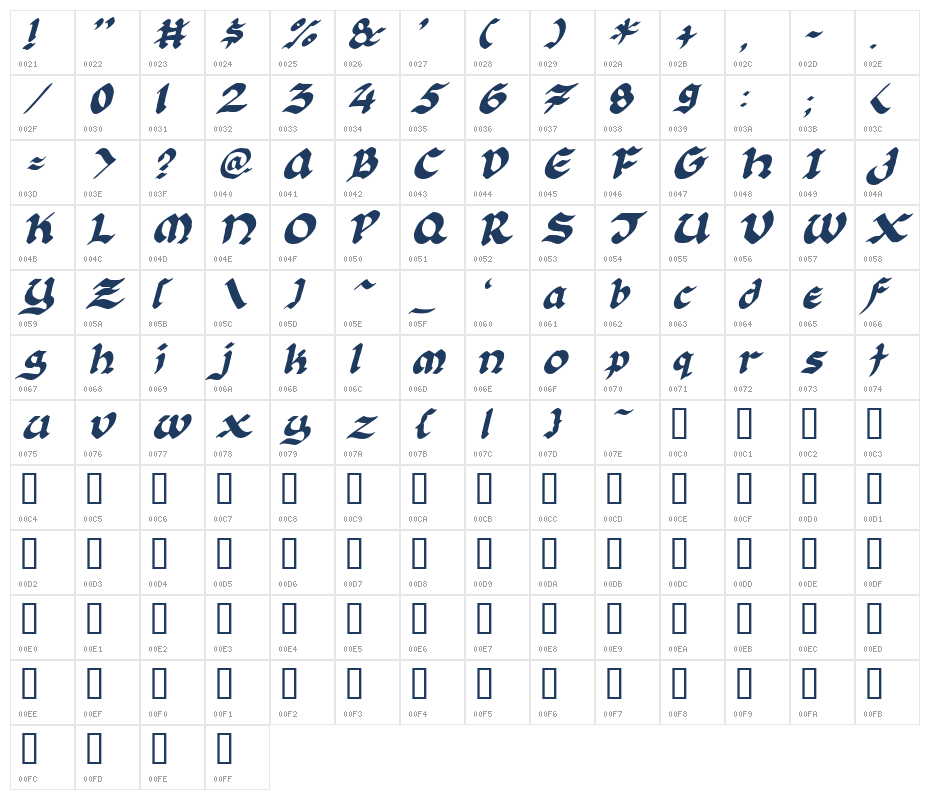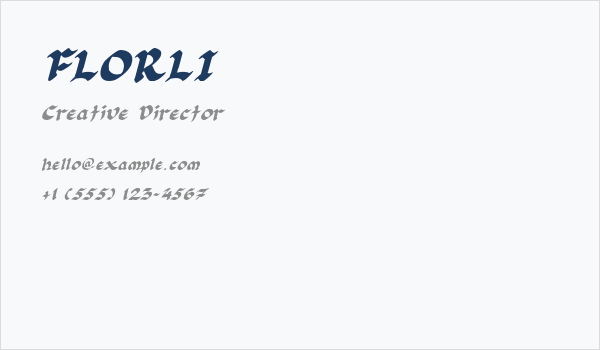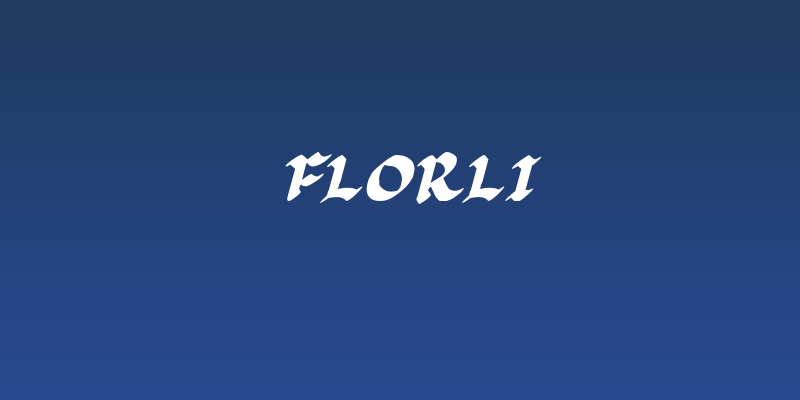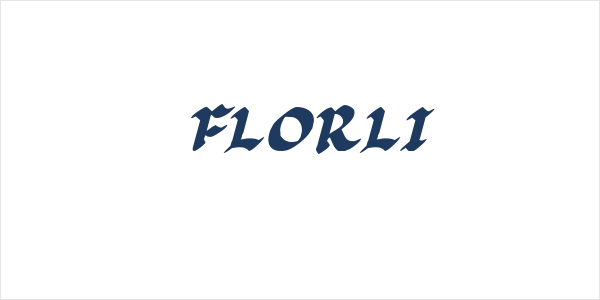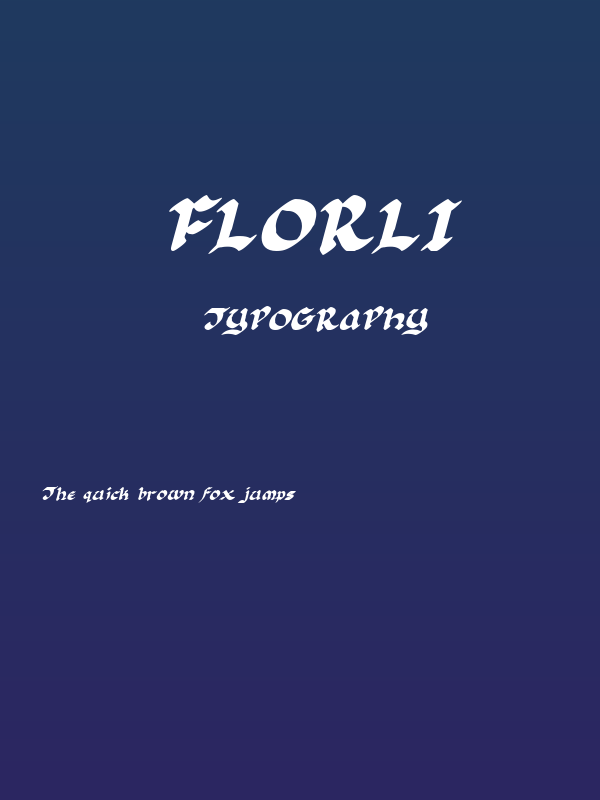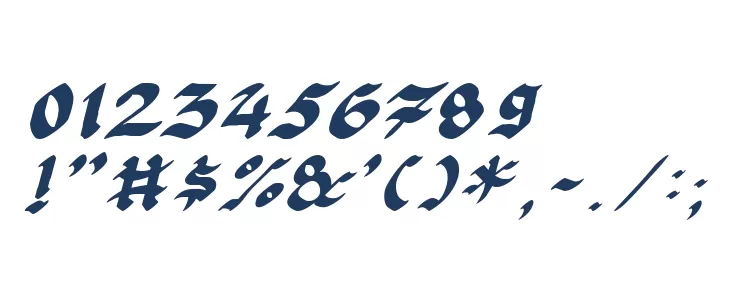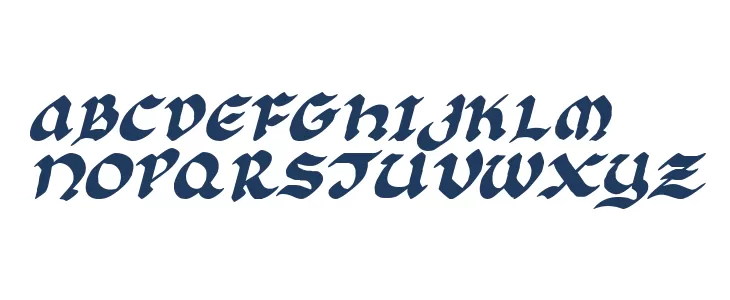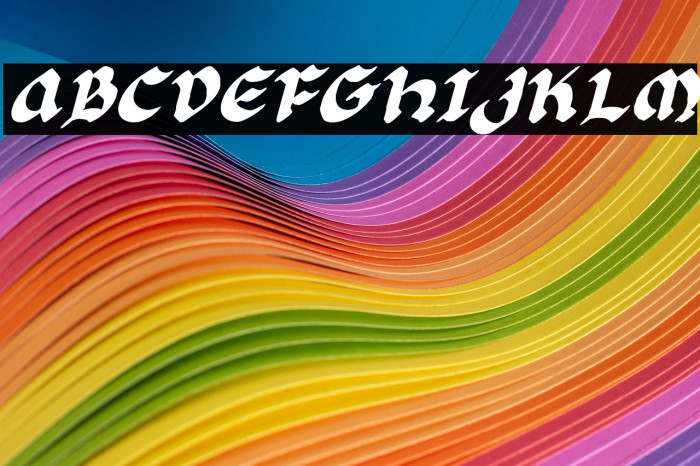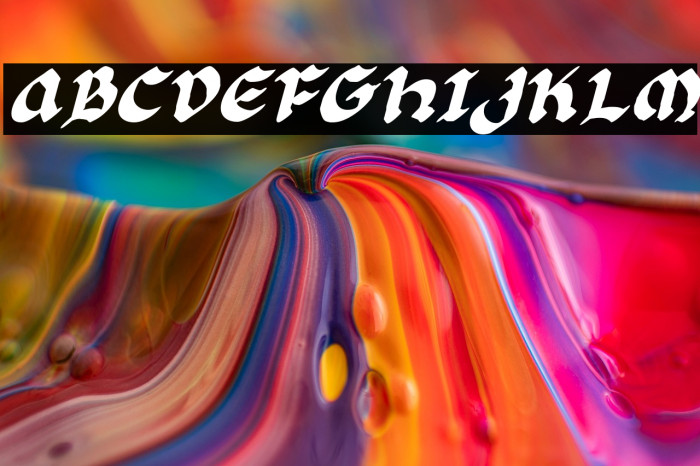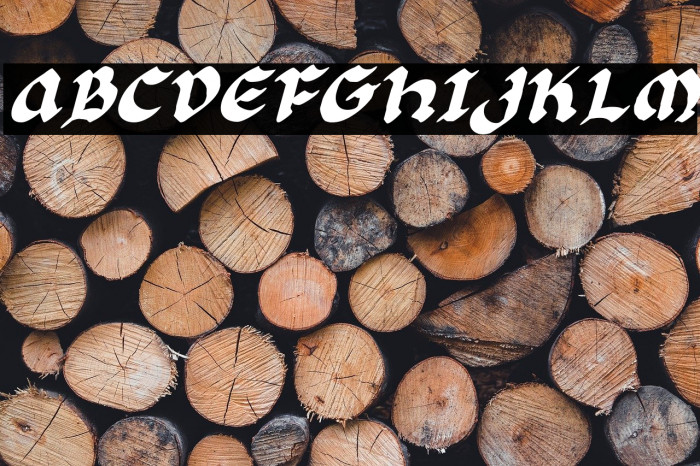
FLORLI Font
FLORLI Description
A decorative, calligraphic style font with a bold, brush-like appearance, featuring sharp angles and dynamic strokes.
| Overall Style | Vintage, Artistic, Calligraphic |
| Use Case | Headlines, Logos, Posters, Branding |